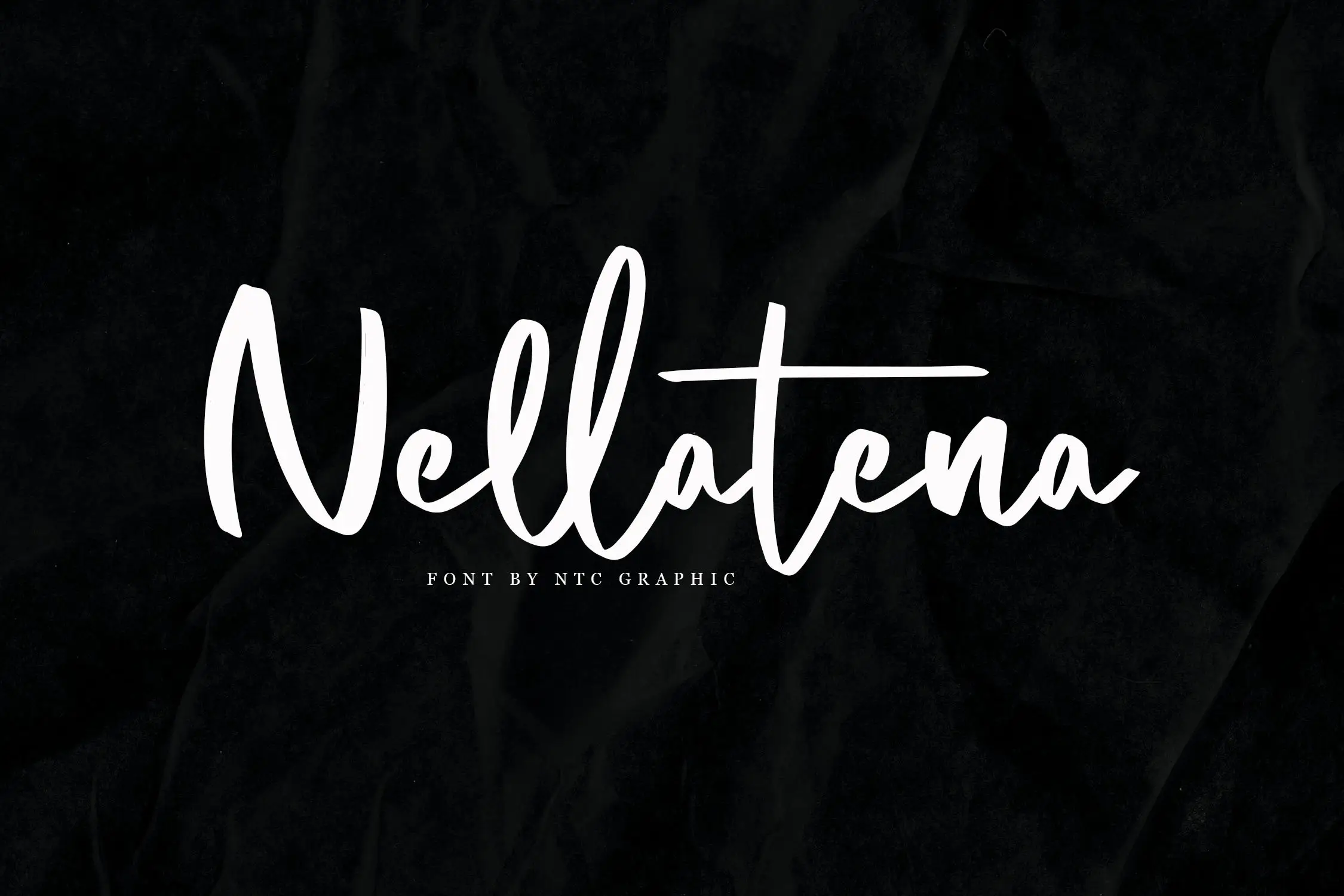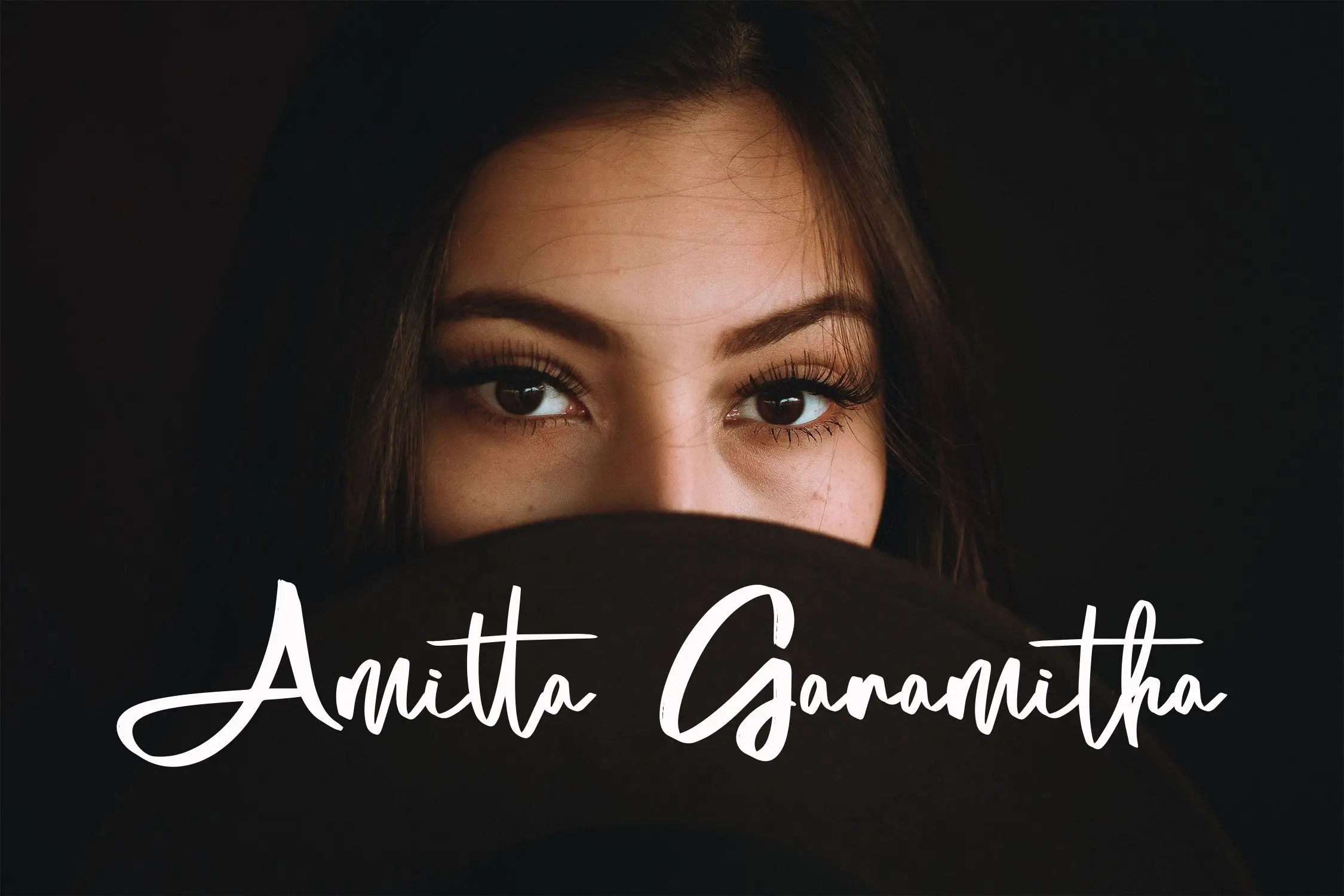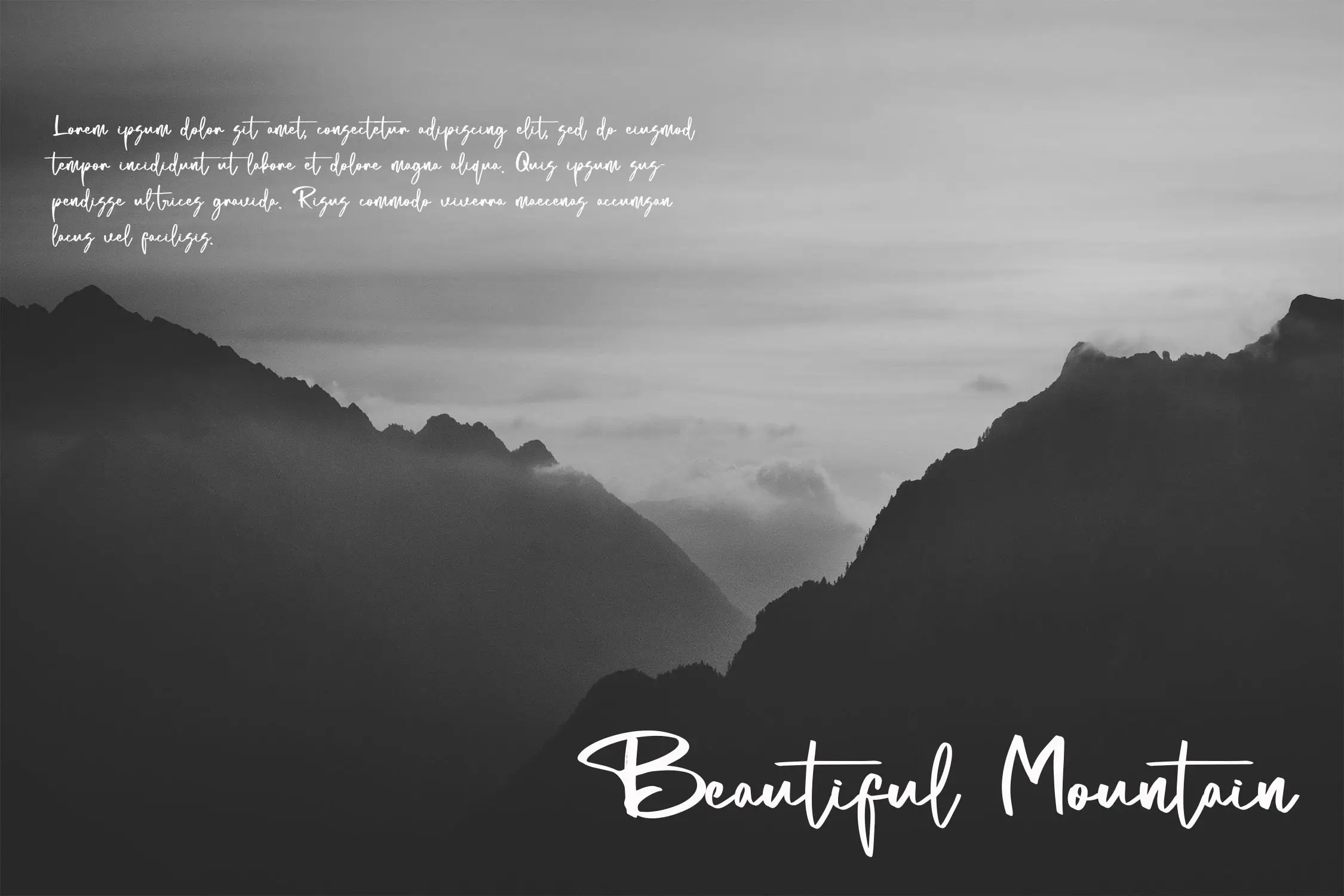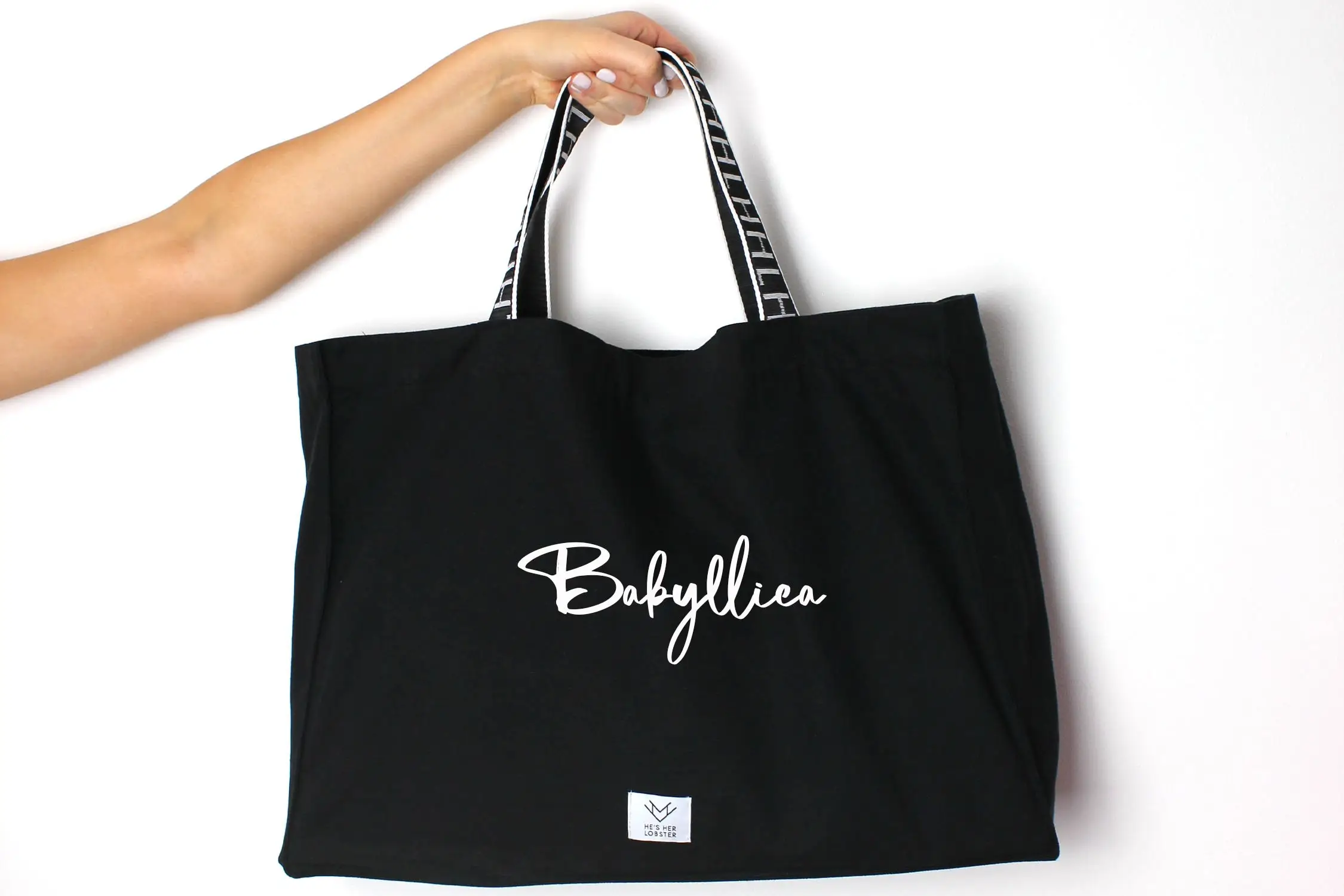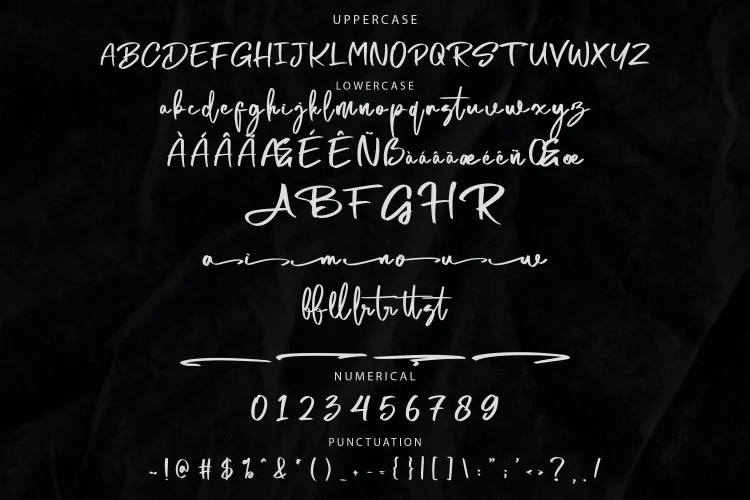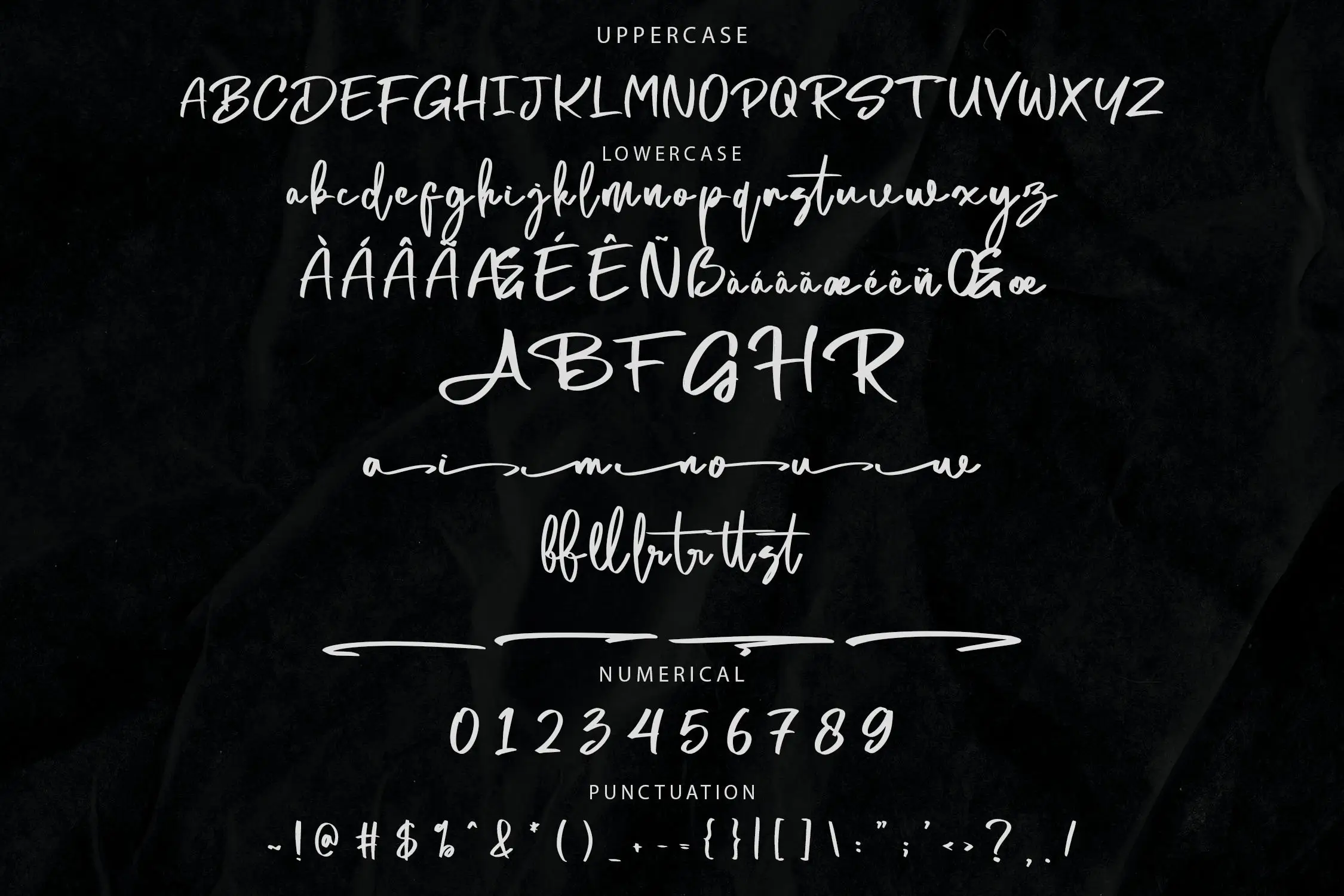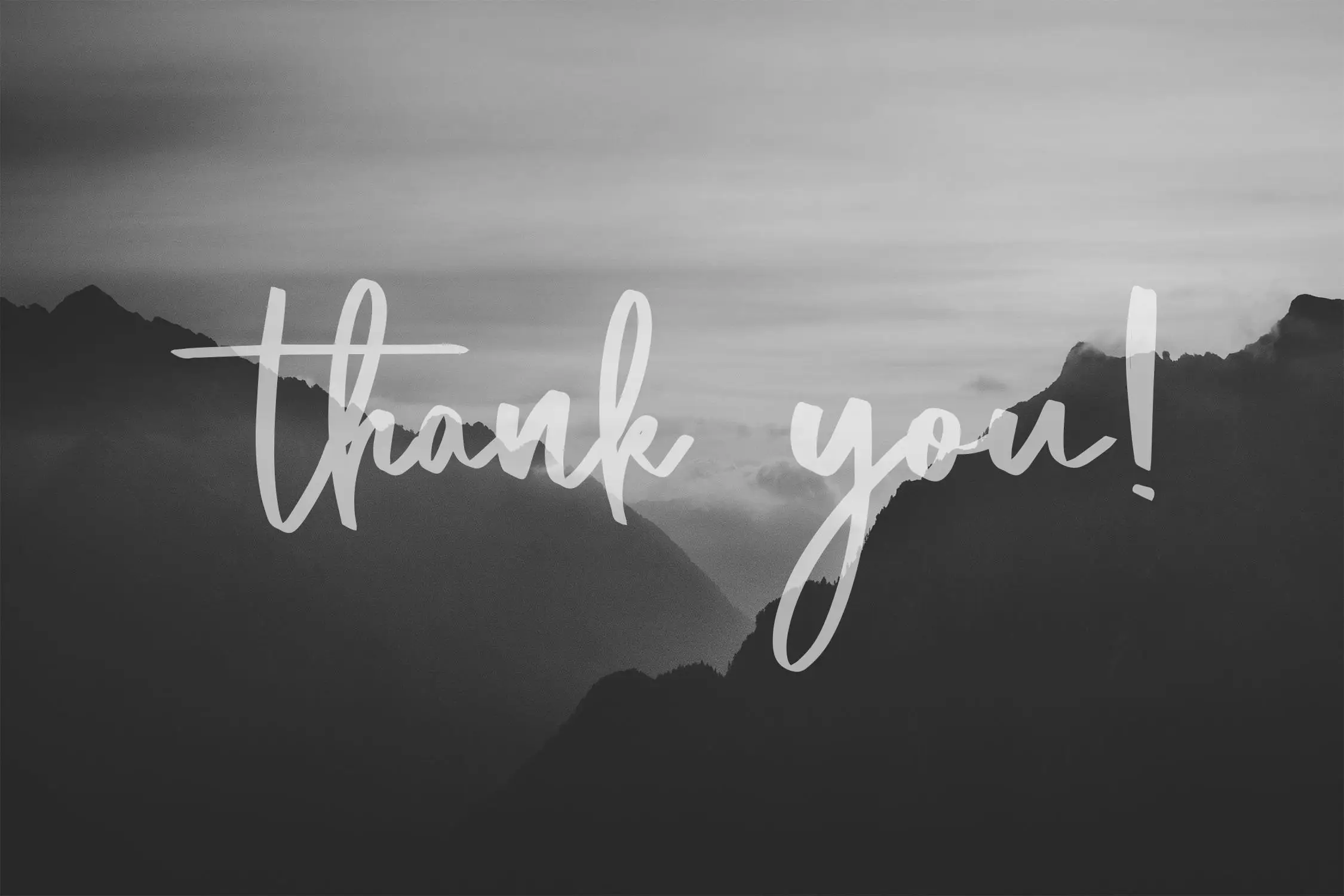
Nellatena
Nellatena – Elegant Brush Script Font
Introducing Nellatena, a sophisticated script font with a graceful brush style. Featuring uniquely designed characters, this font brings an elegant and refined touch to any design project. Perfect for invitations, branding, logos, and other creative visuals, Nellatena enhances the appeal of your graphics with its fluid and stylish strokes.
• Includes ligatures, stylistic alternates, and swashes
• Multilingual support for broader versatility
Add a touch of elegance to your designs with Nellatena brush script font!